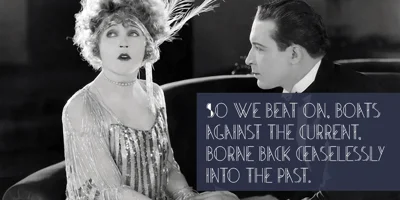
Artie Deco Font
Artie Deco Font excels in vintage design applications including Art Deco hotels, 1920s-themed venues, vintage cocktail bars, Jazz Age celebrations, classic theater productions, luxury vintage brands, Art Deco architecture presentations, Gatsby-inspired events, vintage fashion shows, and glamorous lifestyle campaigns. This stylish typeface brings authentic Jazz Age character to period-inspired design projects.
What makes Artie Deco Font truly exciting is its perfect capture of 1920s design philosophy with geometric letterforms that reflect the optimism and luxury of the Roaring Twenties through precise Art Deco construction. The font features stylized characters with Jazz Age proportions and geometric elegance that convey prosperity, sophistication, and the revolutionary spirit of modern design that defined the Art Deco movement. Its Jazz Age personality and geometric character make it ideal for brands celebrating vintage luxury, Art Deco architecture, and audiences who appreciate 1920s glamour, geometric design, and the timeless elegance of Art Deco aesthetics that transformed modern visual culture.
The Artie Deco Font family typically includes Regular weight with potential geometric variations and Art Deco flourishes that enhance its Jazz Age character. These stylish options provide designers with complete vintage styling while maintaining the font's distinctive Art Deco elegance and period presentation across various luxury applications and vintage contexts.
Whether you're developing vintage luxury branding, creating Art Deco campaigns, or designing Jazz Age marketing materials, Artie Deco Font provides the period authority and geometric sophistication that Art Deco projects require. Its exceptional glamour and vintage appeal make it invaluable for designers working with luxury hotels, vintage venues, and period-focused brands requiring typography that honors Art Deco tradition, celebrates Jazz Age elegance, and reflects the revolutionary design spirit that made the 1920s a defining era of modern visual culture and geometric luxury design.